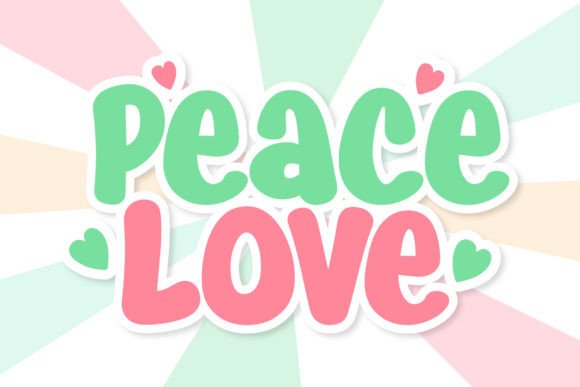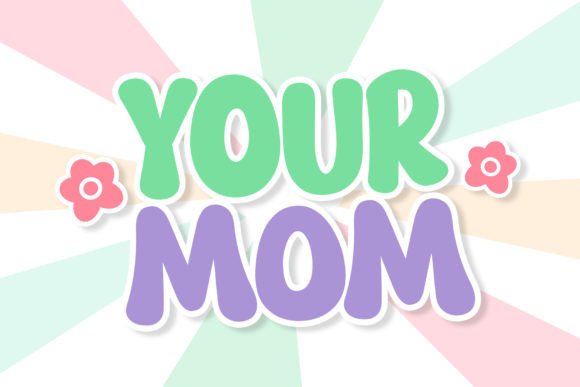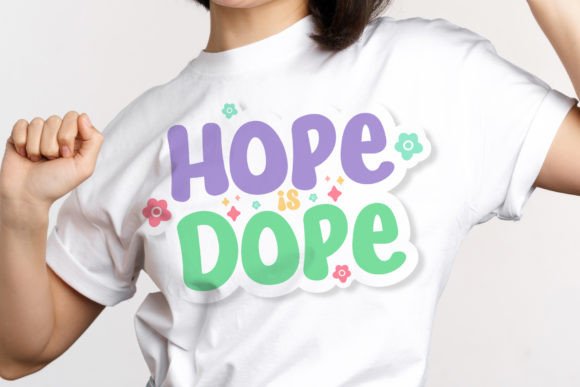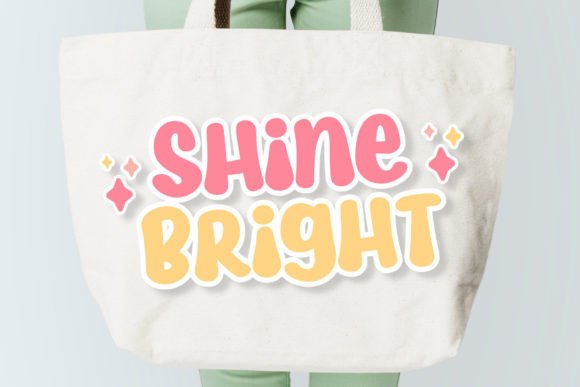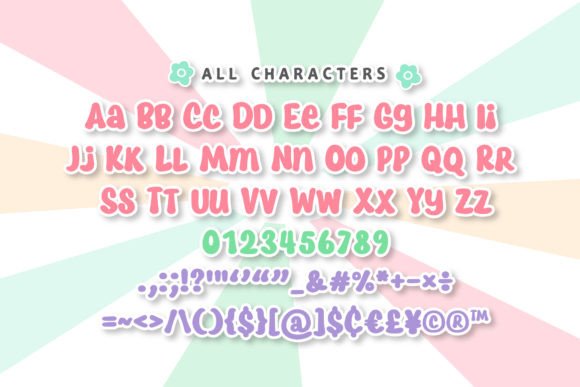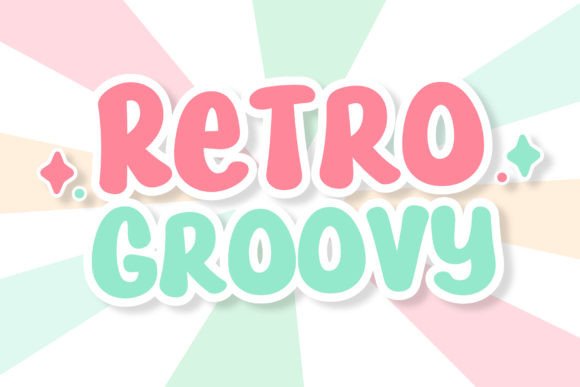
Get Ready to Groove with Your Designs
Have you ever stared at a blank page, waiting for that spark of creativity to strike? The blank page stares back, and you’re left wondering where to begin. But then, it hits you – a font so bold, so vibrant, and so full of life that it demands attention. This is where Groovy Cute Font comes in, a display font that’s guaranteed to bring your designs to life.
Designed to make a statement, Groovy Cute Font is perfect for anyone looking to add a touch of youthfulness and courage to their work. From comic book style illustrations to eye-catching social media posts, this font is sure to turn heads. As a designer, you’ll appreciate its versatility and the way it can instantly elevate your creations.
Groovy Cute Font Key Features
- Unique Characteristics: Groovy Cute Font features a playful and whimsical design, with rounded edges and soft lines that evoke a sense of childlike wonder and friendliness.
Groovy Cute Font Review
I recently had the chance to work with the Groovy Cute Font, and overall, I’m impressed. The font has a unique, playful vibe that’s perfect for designs that need a bit of whimsy ✨. The character set is well-rounded, with a variety of punctuation marks and symbols that add to its charm.
The font’s weight and style options are also well-designed, making it easy to achieve the right look for your project. I particularly appreciate the bold weight, which adds a fun, graphic touch to headings and titles ✨. The font’s kerning and spacing are also well-executed, ensuring that text flows smoothly and looks professional.
Limits and Challenges
- ⚠️ Limited language support: While the font includes a decent range of characters, it’s not as comprehensive as some other fonts. This might be a concern for projects that require text in multiple languages.
- ⚠️ Limited vertical metrics: The font’s vertical spacing can be a bit tight in some cases, which may affect the readability of long blocks of text.
Despite these limitations, I’m still a fan of the Groovy Cute Font. Its unique style and well-designed weight and style options make it a great choice for projects that need a playful touch. Just be mindful of the limitations when choosing this font for your next design project ✨.
Tips for Getting the Most Out of Groovy Cute Font
Use Groovy Cute Font for playful, whimsical designs that require a touch of personality.
Combine with bold, bright colors to create a visually striking effect.
Experiment with different font sizes and styles to add depth and interest to your design.
Use Groovy Cute Font for:
Social media posts and ads
Invitations and party decorations